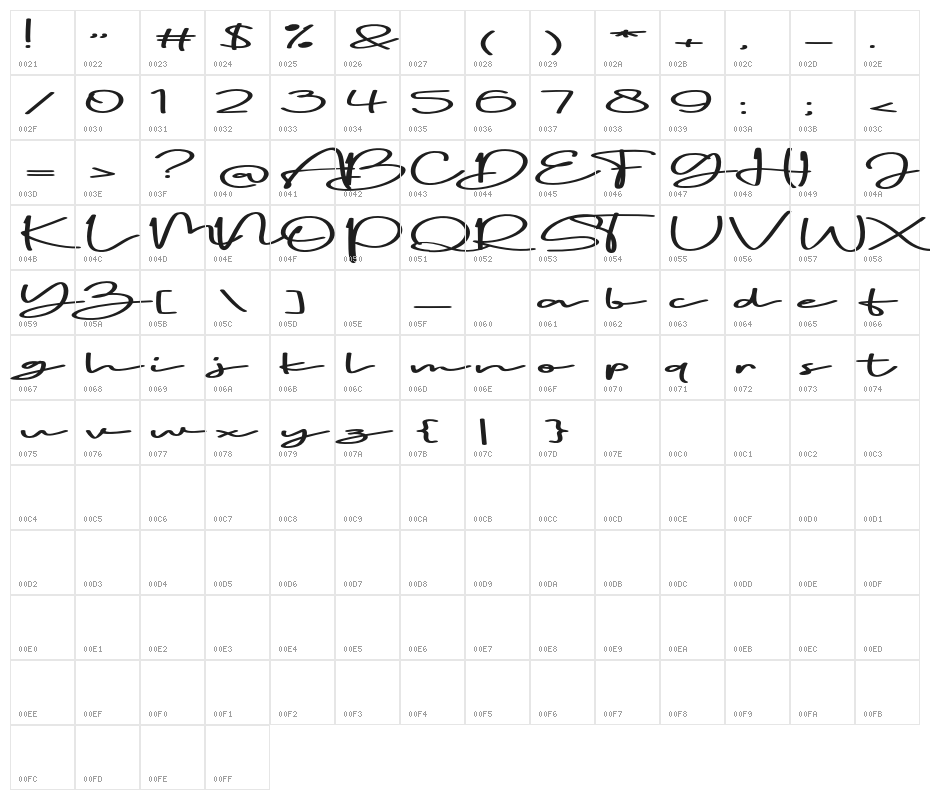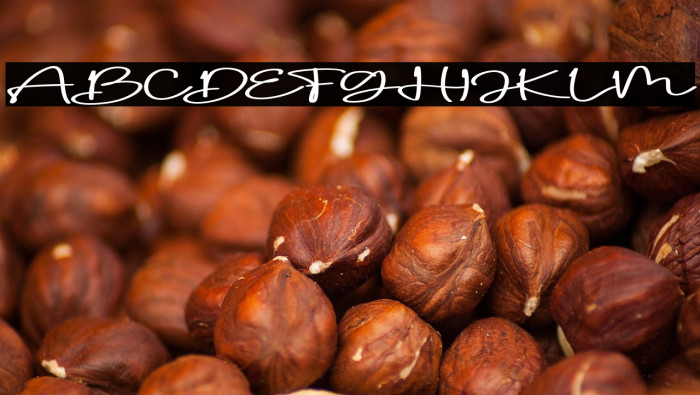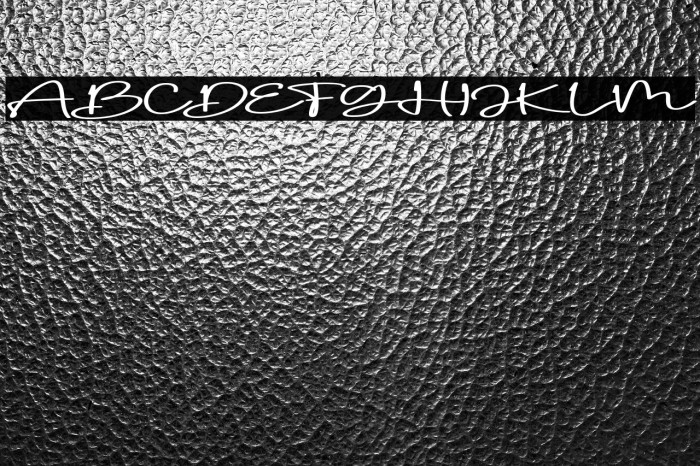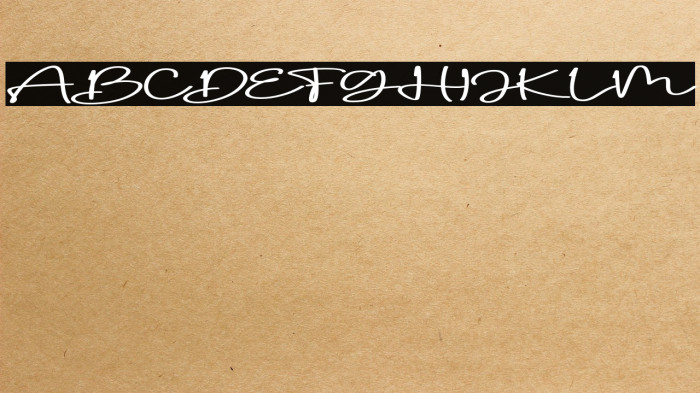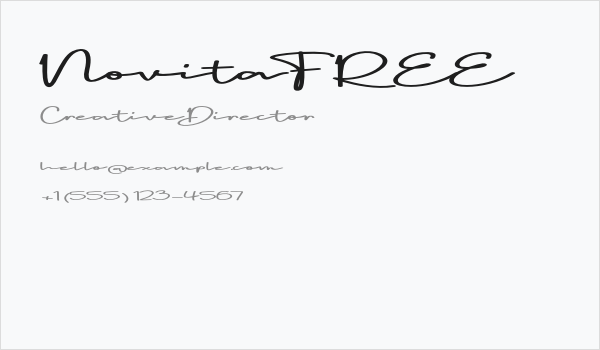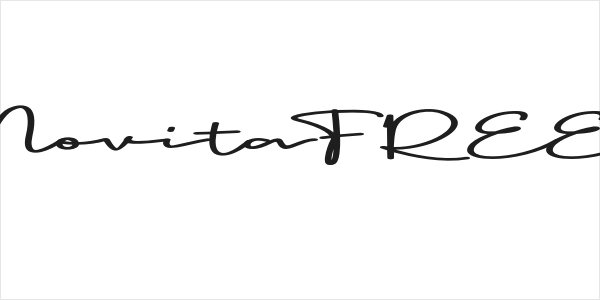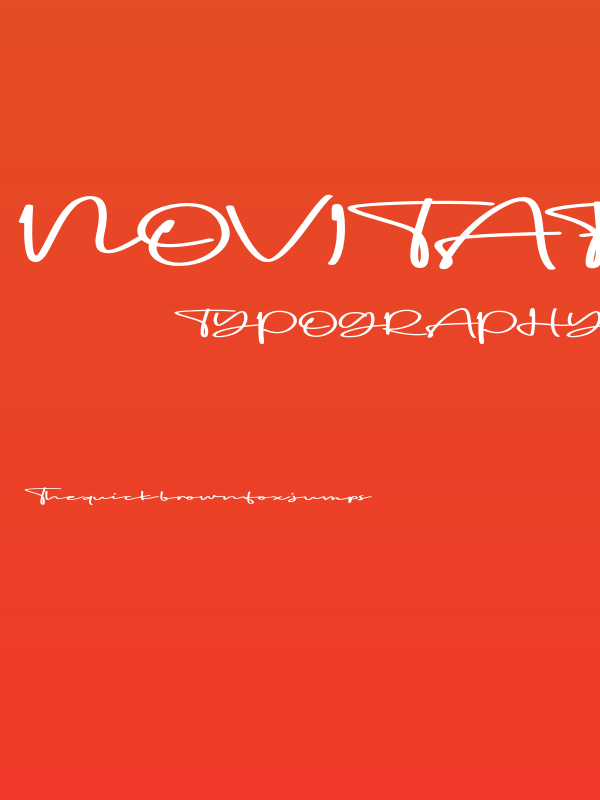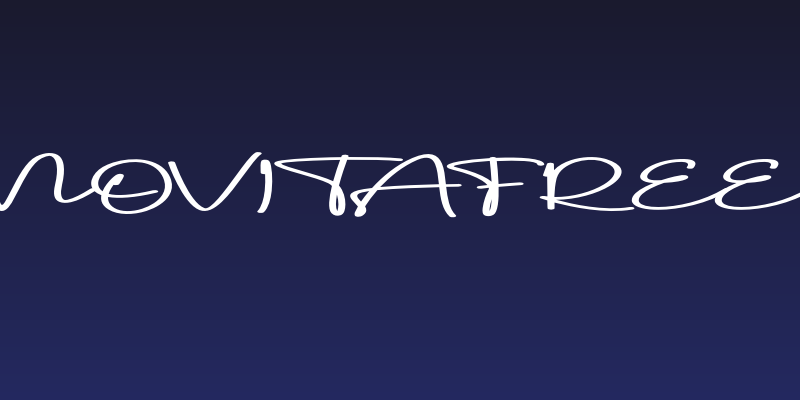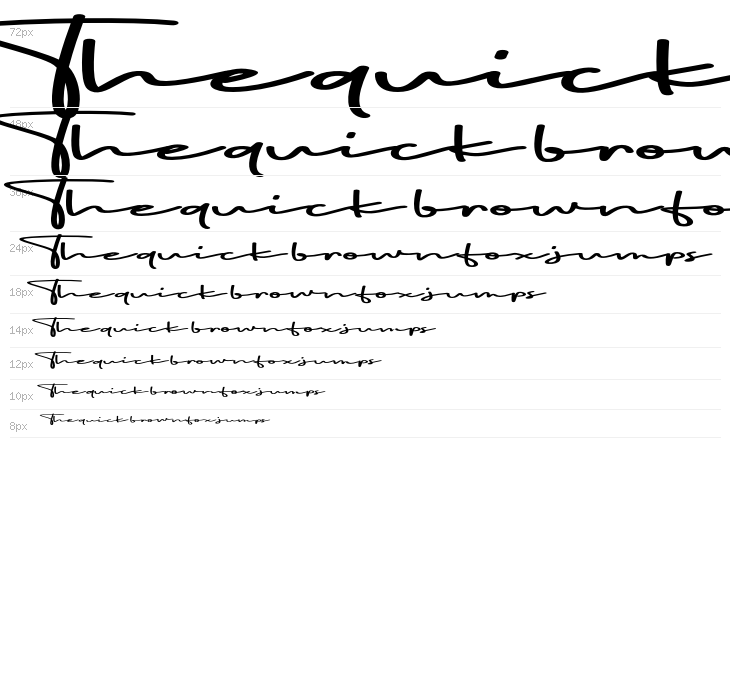
NovitaFREE Font
NovitaFREE Description
A casual, flowing handwritten script with connected letters and smooth curves, featuring consistent stroke width and a friendly, informal appearance.
| Overall Style | Modern, Decorative, Casual |
| Use Case | Logos, Headlines, Quotes, Invitations |
| Proposed Projects | Greeting cards, invitations, personal branding, social media graphics, quotes, and informal posters. |